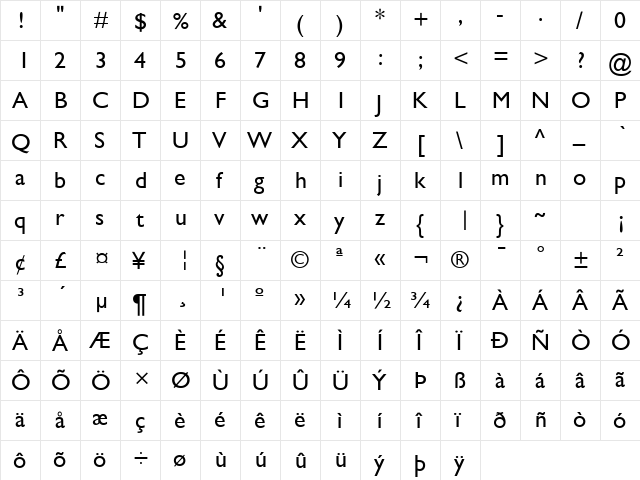
Garrison Light Sans BOLD Font Preview
Garrison Light Sans BOLD
Garrison Light Sans BOLD Font Details
Design Context for Garrison Light Sans Typeface
Garrison Light Sans is a composed and adaptable typeface that performs quietly and consistently across a wide range of design contexts. The heavy weight commands attention and anchors typographic hierarchies.